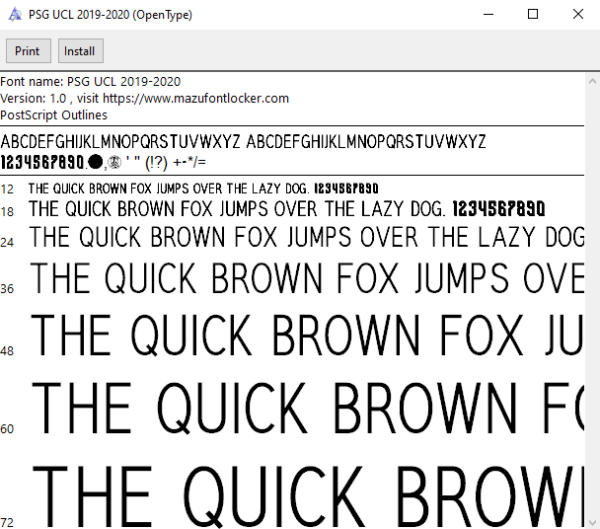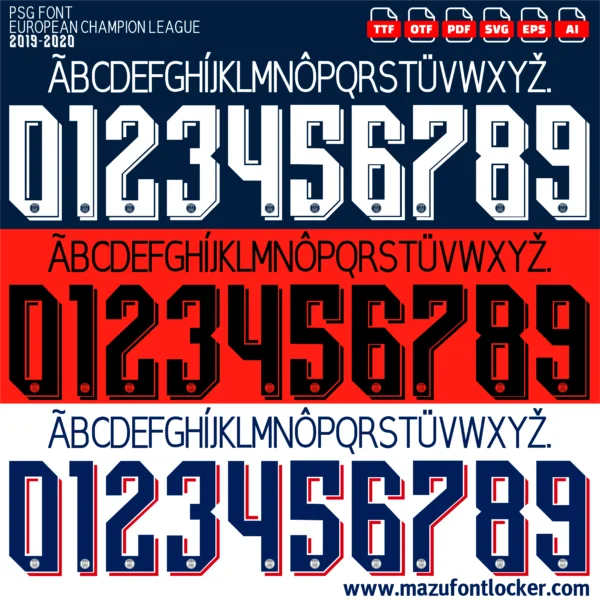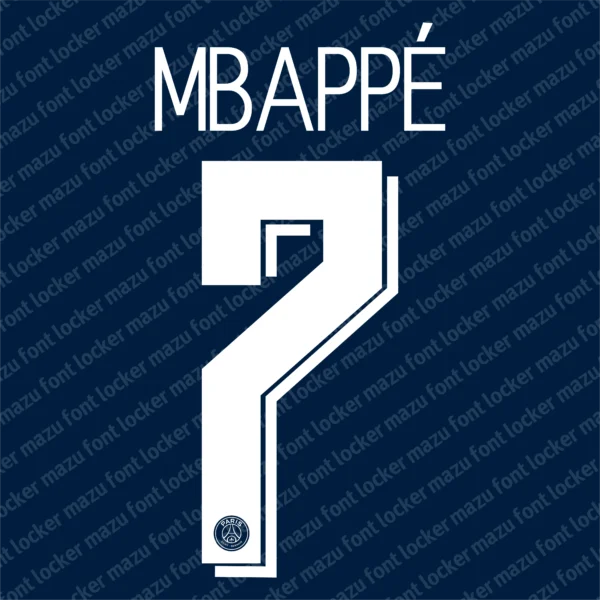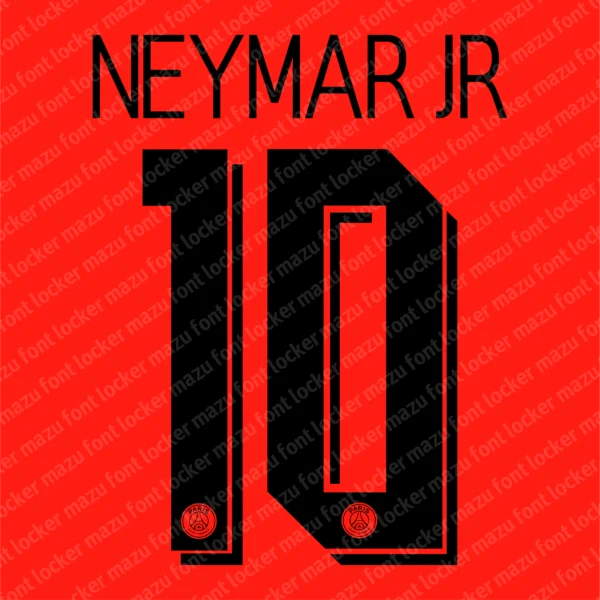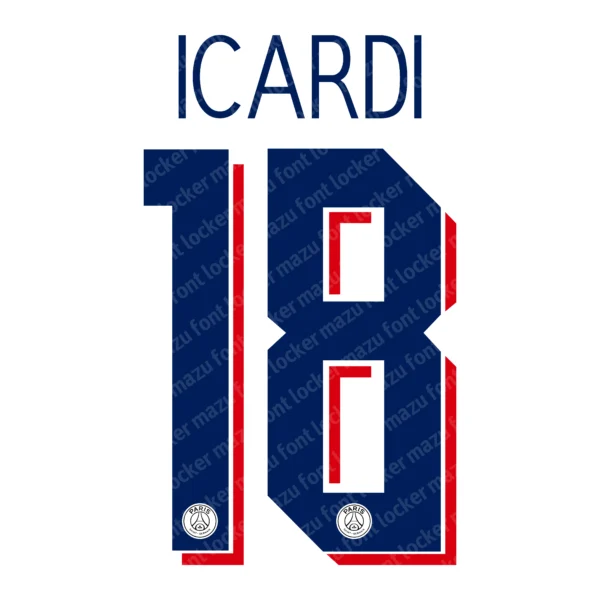
PSG UCL 2019-2020 Font Vector – Epic Les Parisiens Masterpiece
This font captures the sharp, modern, precision-crafted lettering inspired by PSG’s iconic navy-and-red identity, proud French football heritage, Parisian star power, modern superclub ambition, and historic 2019-2020 UCL run — delivering premium authenticity and pure European nights energy for professional jersey mockups, football graphics, sports branding, fan designs, and high-end creative projects.
PSG UCL 2019-2020 Font Vector – Stunning Les Parisiens Champions League Typeface
The PSG UCL 2019-2020 Font Vector is a premium football typeface designed to recreate the distinctive lettering associated with Paris Saint-Germain during their memorable 2019-2020 UEFA Champions League campaign. This high-quality vector font kit captures a bold, modern, clean, and instantly recognizable football typography style inspired by Les Parisiens’ iconic blue, red and white identity and proud French football heritage.
Designed for professional graphic designers, football enthusiasts, jersey collectors, and passionate Paris Saint-Germain supporters, the PSG UCL 2019-2020 Font Vector delivers an authentic modern football aesthetic for creating realistic jersey mockups, classic football merchandise, social media graphics, match posters, squad designs, banners, and custom fan artwork. Every character has been carefully recreated to reflect the powerful and distinctive visual style associated with one of Europe’s most ambitious clubs during their historic Champions League run.
Why Choose PSG UCL 2019-2020 Font Vector
This font stands out thanks to its precise vector construction and authentic football styling. Every letter and numeral has been meticulously recreated to deliver a distinctive football lettering aesthetic inspired by Paris Saint-Germain’s 2019-2020 UEFA Champions League period and its celebrated French football heritage. Whether you’re producing professional football kit templates, modern jersey concepts, Champions League graphics, contemporary football posters, squad designs, or eye-catching football content, the PSG UCL 2019-2020 Font Vector delivers a genuine match-ready appearance inspired by the identity of Les Parisiens.
The lettering featured in the PSG UCL 2019-2020 Font Vector combines strong geometric lines with balanced football proportions. The result is a premium and highly readable typeface that reflects Paris Saint-Germain’s traditional blue-red-white identity, modern French football heritage, and established status in Ligue 1 and European competition.
• Complete uppercase A–Z alphabet and numbers 0–9 in authentic PSG UCL 2019-2020 inspired style
• Special PSG badge glyph – Press the “:” (Colon) key to insert the club crest
PSG UCL 2019-2020 Era
The PSG UCL 2019-2020 Font Vector is inspired by the distinctive football typography and visual identity associated with the club during this memorable Champions League run, making it an excellent choice for designers creating contemporary jersey concepts, European football posters, squad graphics, football artwork, social media designs, and fan-made projects. For official club information, history, news, fixtures, and team updates, visit the official Paris Saint-Germain website. For official UEFA Champions League information, fixtures, results, and competition news, visit the official UEFA website. For official French league information, fixtures, results, and Ligue 1 news, visit the official Ligue 1 website.
The PSG UCL 2019-2020 Font Vector is an independently designed typeface package inspired by the football lettering and visual identity associated with Paris Saint-Germain during the 2019-2020 UEFA Champions League era. It has been carefully recreated for football enthusiasts, graphic designers, collectors, jersey creators, and fans producing custom football concepts, digital artwork, and fan-made projects. Please note that this is a fan-made design resource and is not an official product of Paris Saint-Germain, Ligue 1, UEFA, FIFA, or any associated organization.